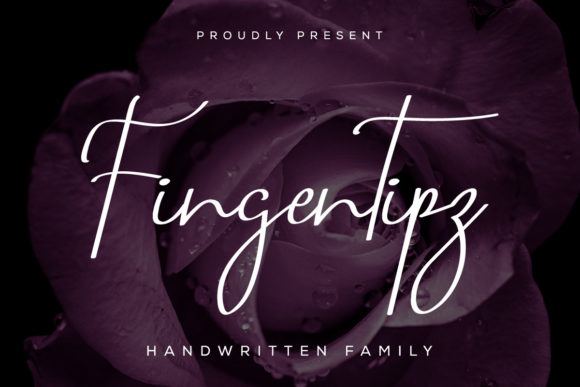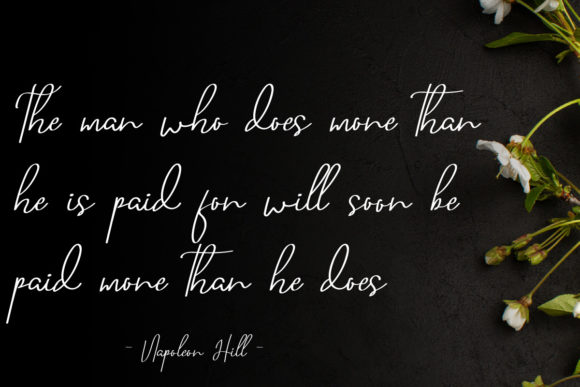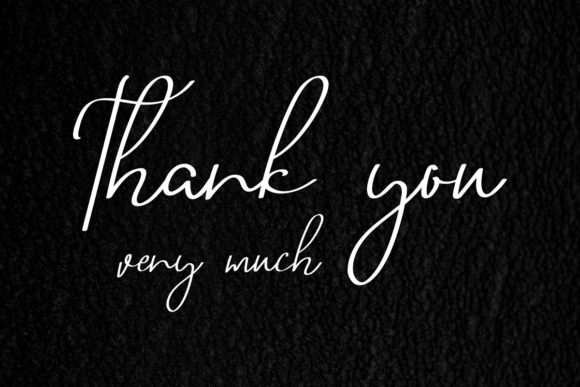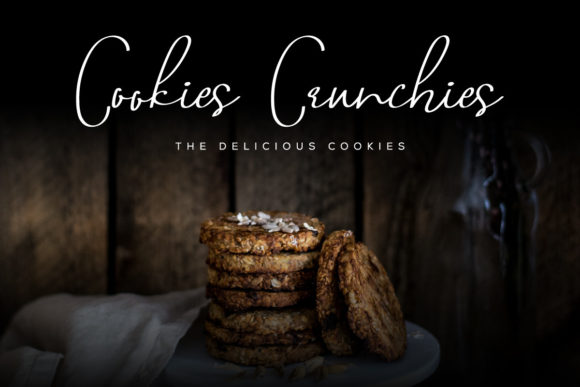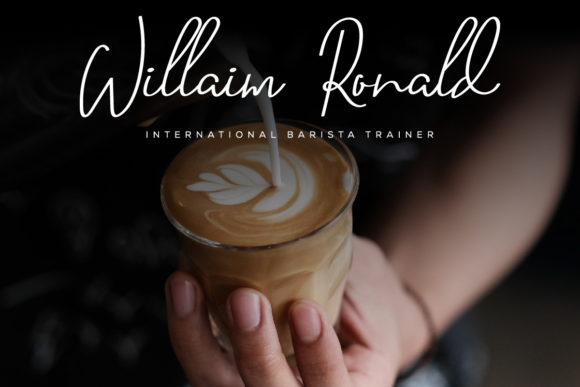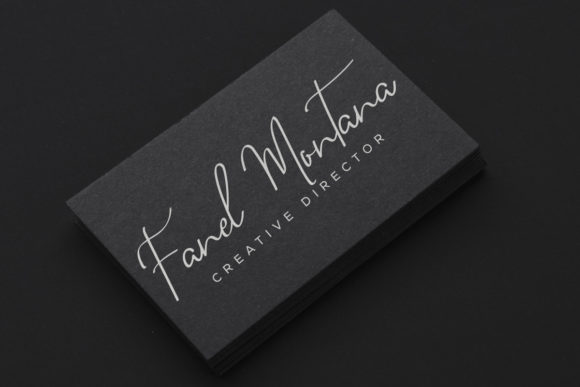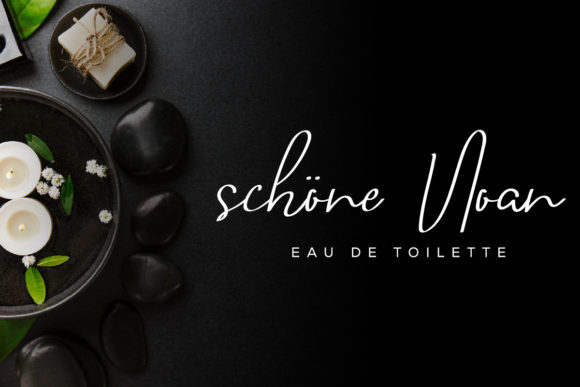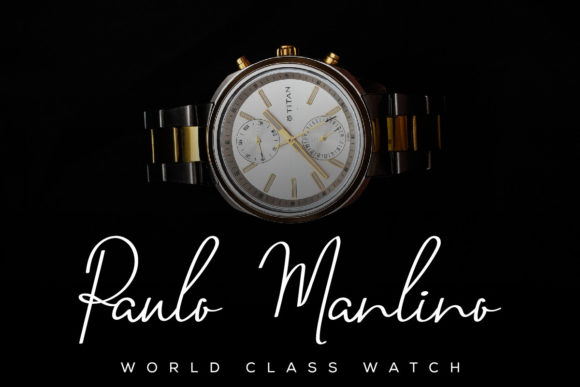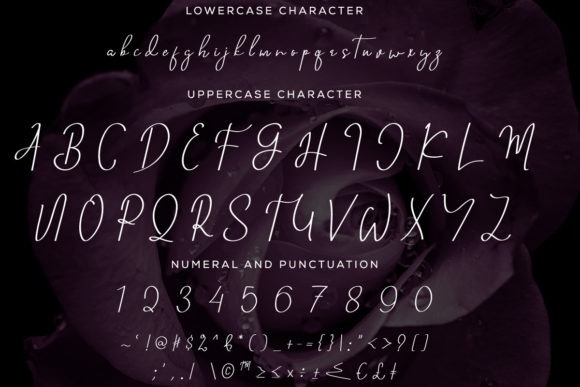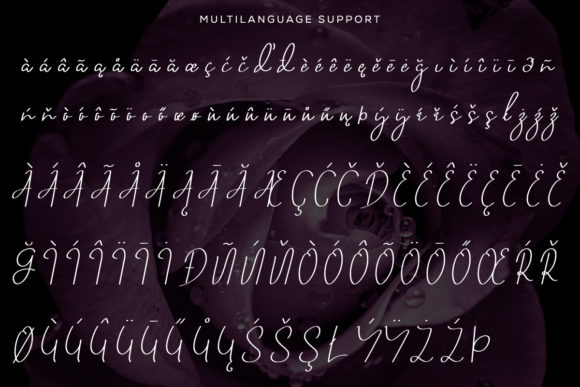
Fingertipz Font
About Fingertipz Font
Fingertipz is a sweet and friendly handwritten font that adds a touch of charm and personality to your designs. With its natural and unique style, it is incredibly fitting for a wide range of design projects.
The handwritten appearance of Fingertipz brings a sense of authenticity and warmth to your designs. Whether you’re working on greeting cards, invitations, branding materials, or social media posts, this font adds a personal and friendly touch that resonates with the audience.
One of the standout features of Fingertipz is its PUA encoding. This means that you can easily access all of the glyphs and swashes, allowing for customization and creativity in your designs. The wide range of available characters and decorative elements give you the flexibility to create unique and eye-catching compositions.
In branding and logo design, Fingertipz creates a memorable and approachable identity. Its friendly and playful letterforms make it suitable for a variety of industries, such as lifestyle brands, children’s products, or creative businesses. The natural flow of the font adds a sense of ease and accessibility, making it relatable to the target audience.
Fingertipz is also well-suited for various types of stationery and printed materials. Whether it’s on wedding invitations, thank-you cards, or personalized notes, the handwritten font adds a personal and heartfelt touch. Its legible letterforms ensure readability while maintaining a unique and handcrafted look.
Additionally, Fingertipz works beautifully for social media graphics and quotes. Its friendly and approachable style enhances the impact of inspirational quotes, messages, or captions. Whether you’re creating Instagram posts, Pinterest graphics, or motivational prints, Fingertipz adds a touch of sweetness and charm to your typography.
Overall, Fingertipz is a sweet and friendly handwritten font that is fitting for a wide range of design projects. Its PUA encoding allows for easy access to glyphs and swashes, giving you the freedom to customize and personalize your designs. Whether you’re working on branding, stationery, or social media graphics, Fingertipz adds a touch of warmth and personality that resonates with the audience.